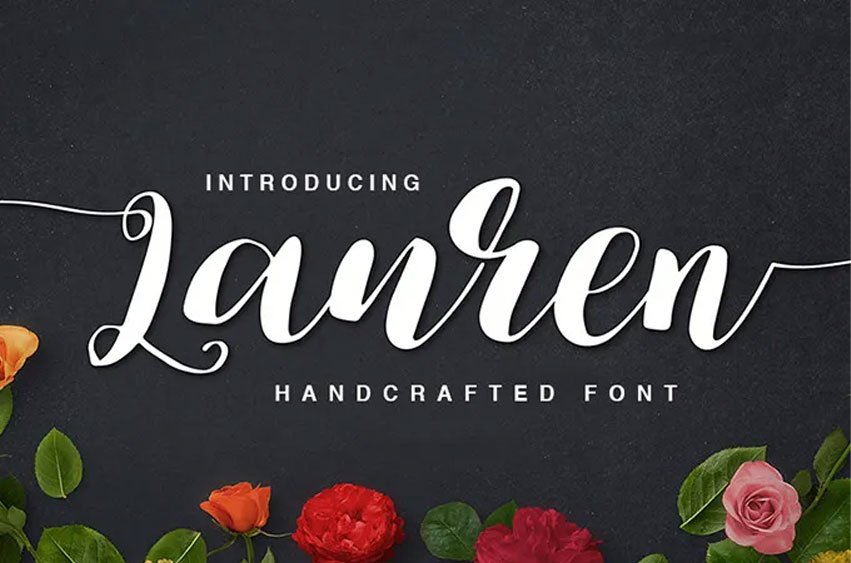
Lauren Script Font is one of the hand crafted fonts that are available on font sites developed and designed through the efforts of professional font designers. This font has many contextual substitutes and ligatures via Open Type attributes ideal for application in cards, logo designs, name cards, banners and websites.